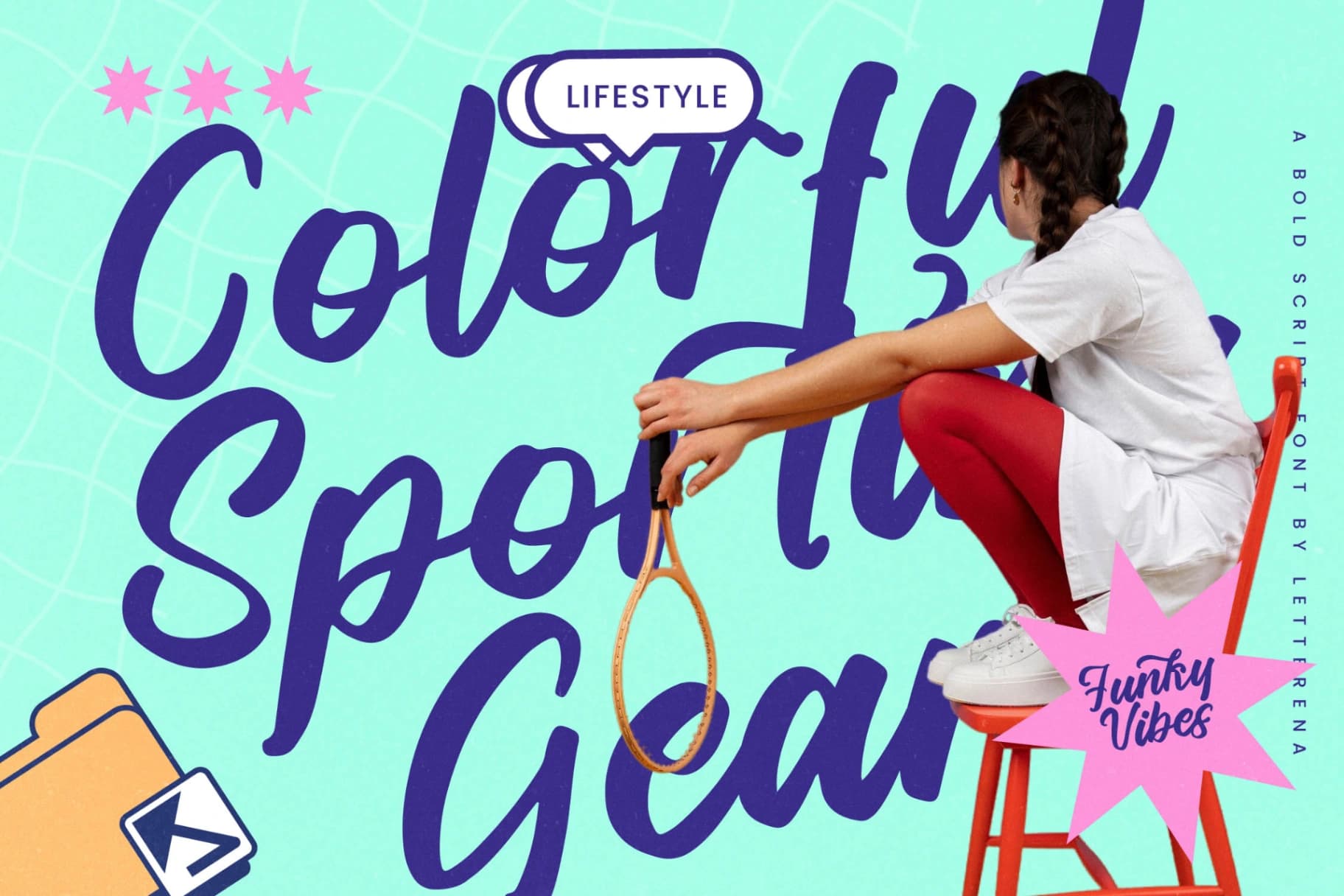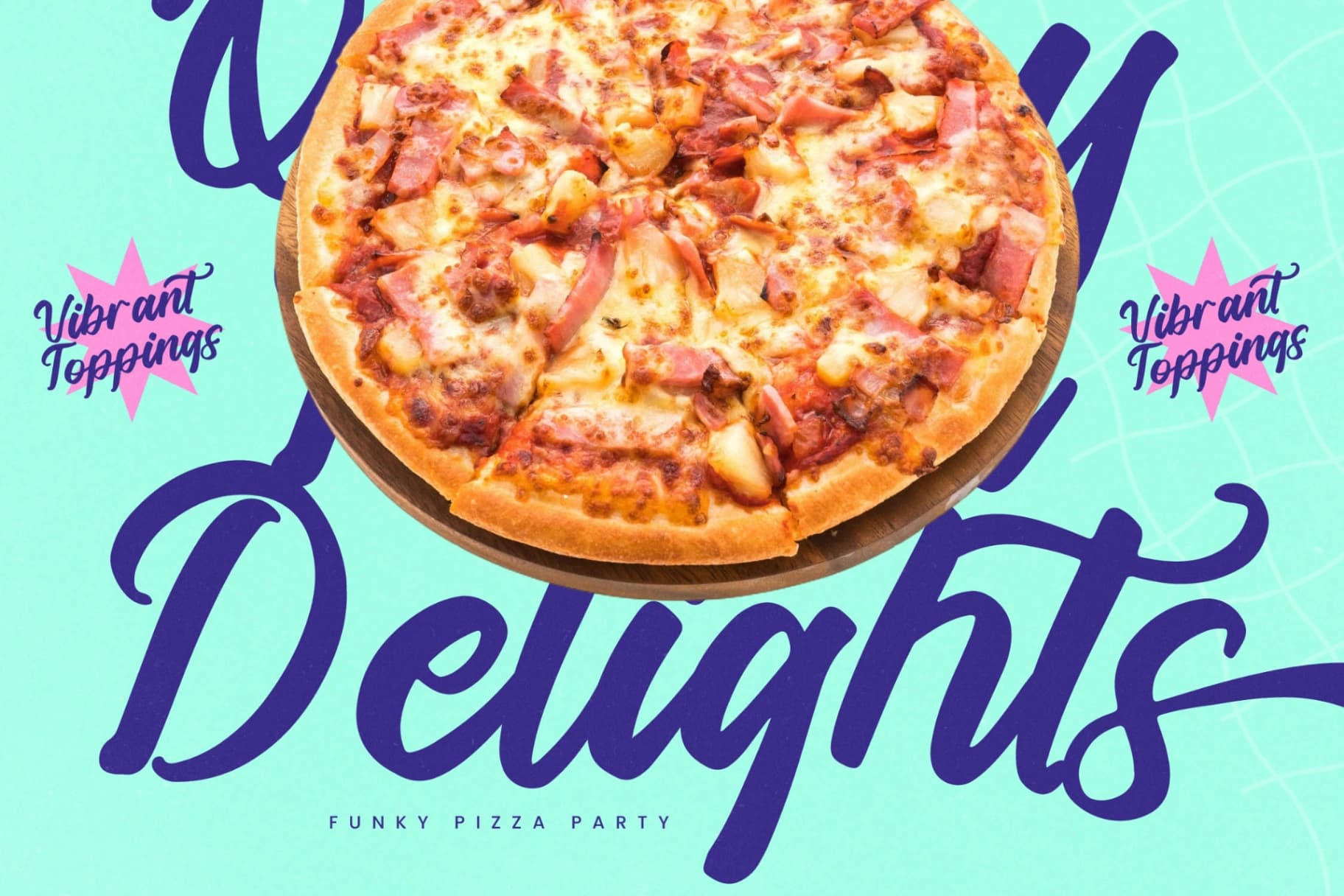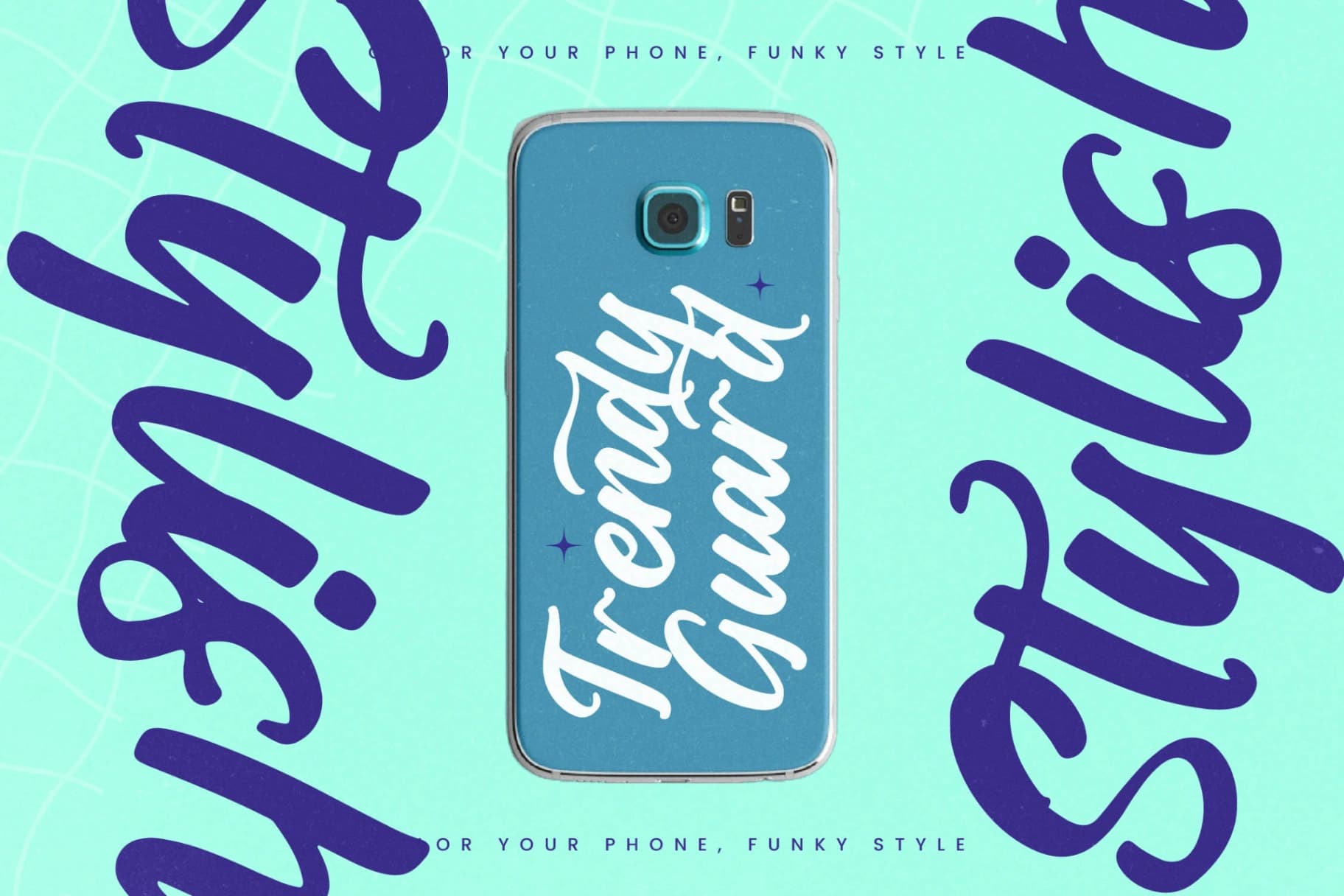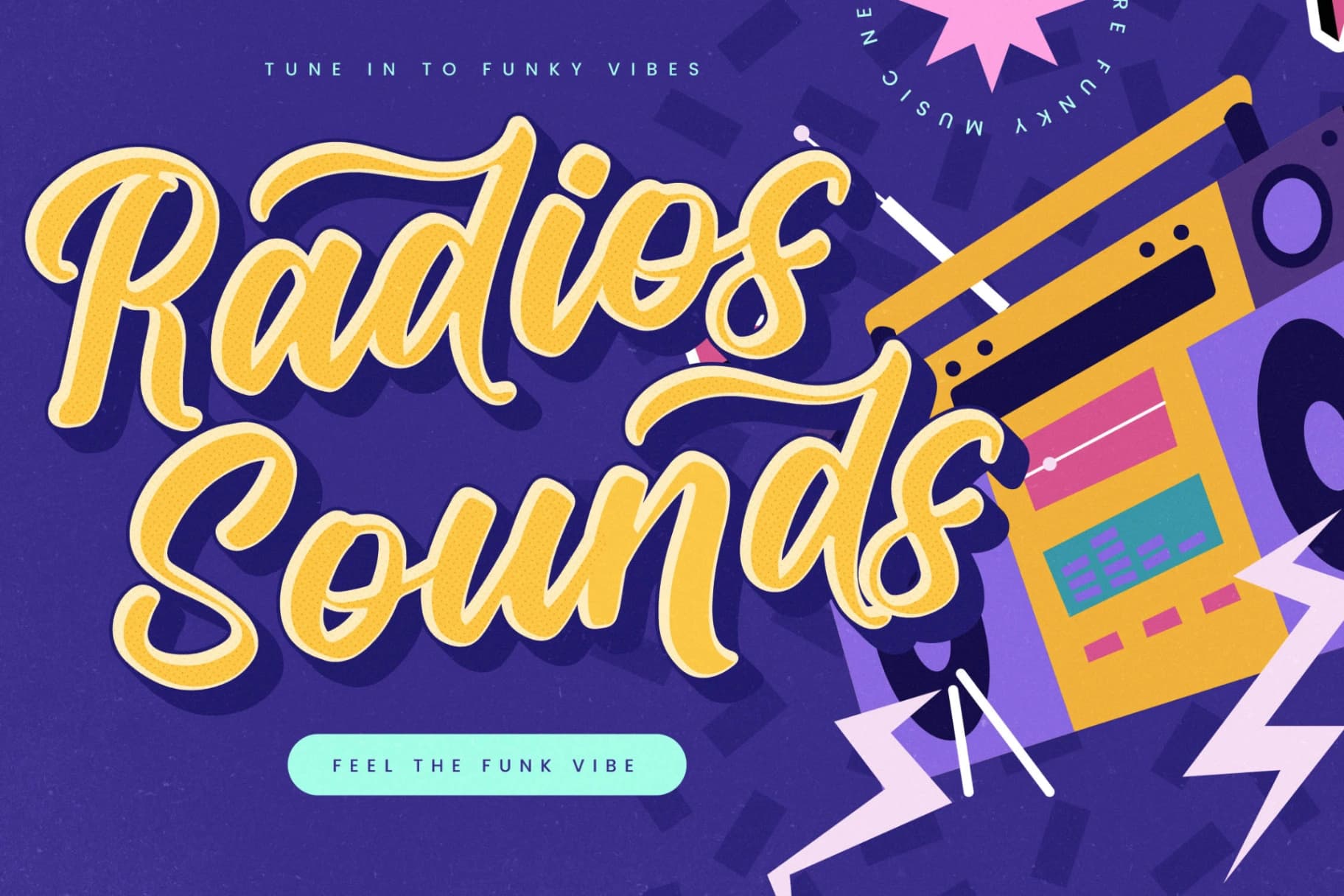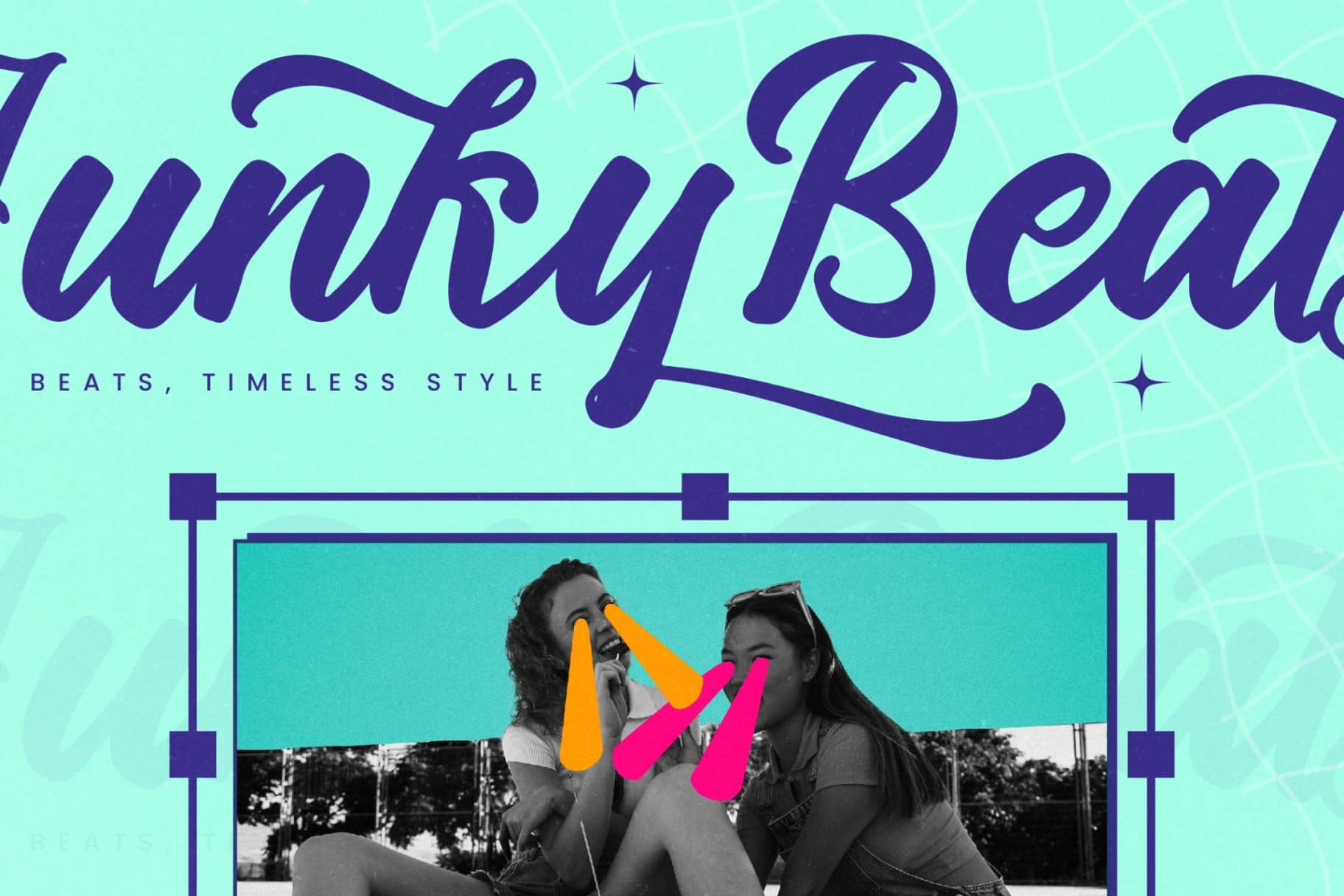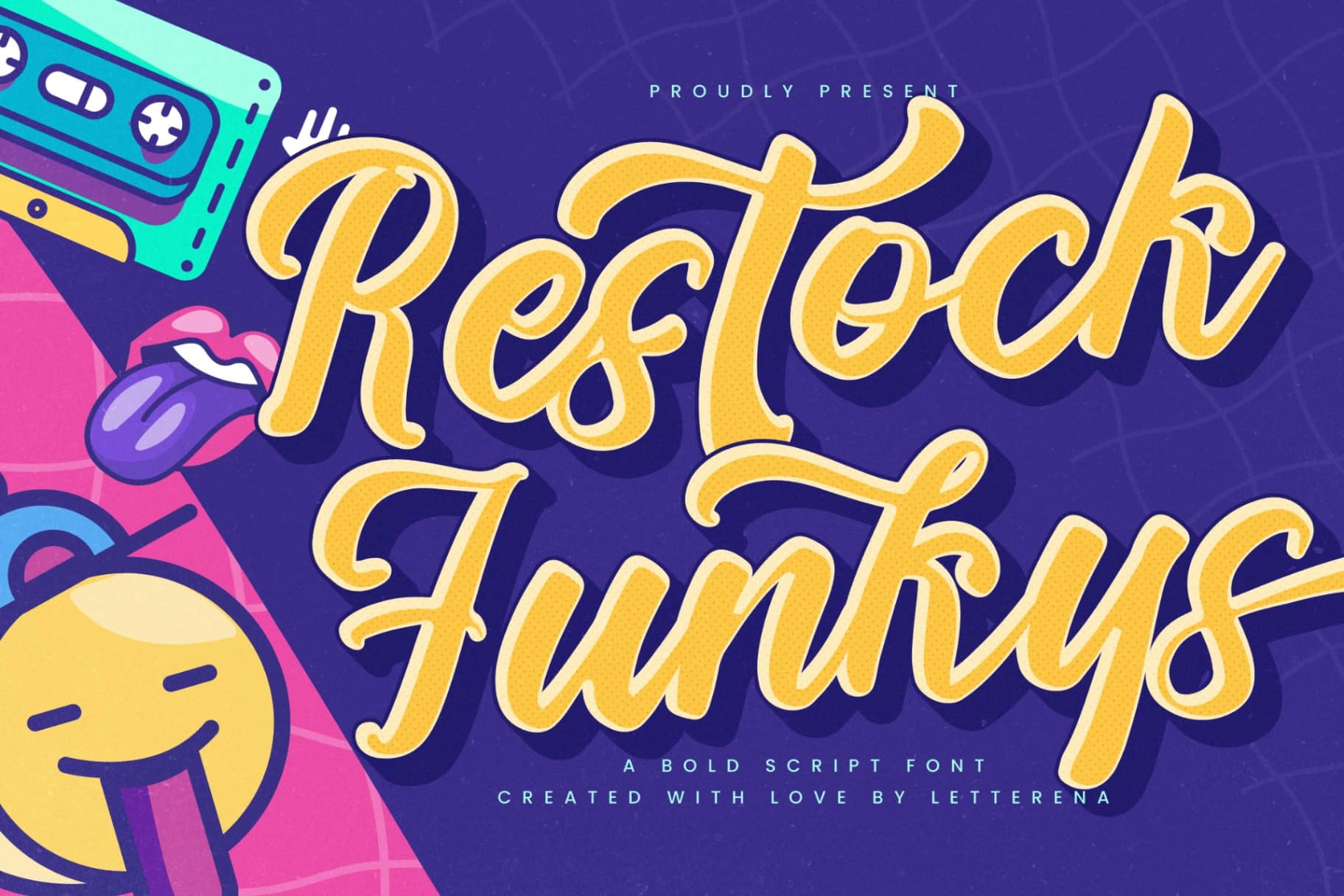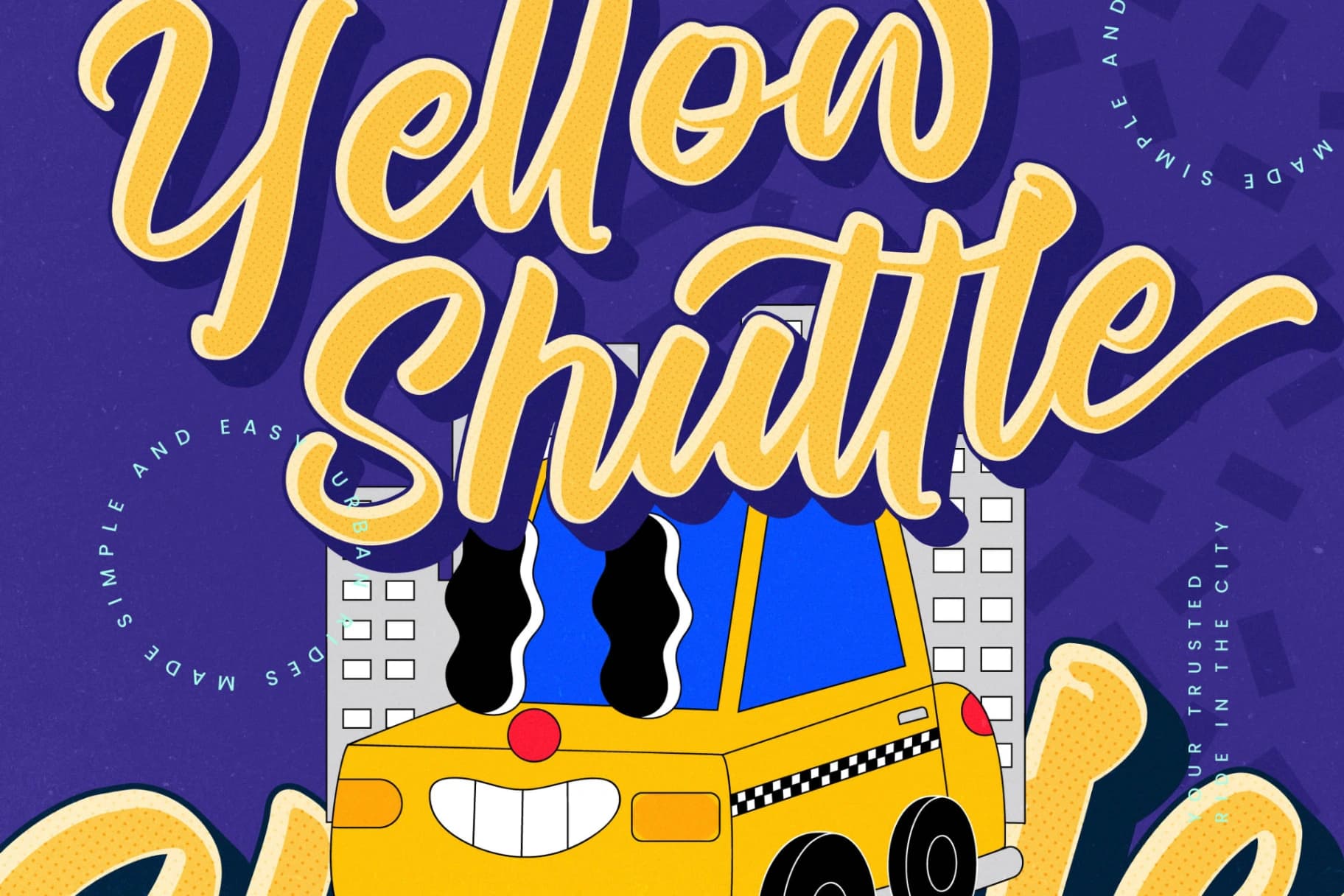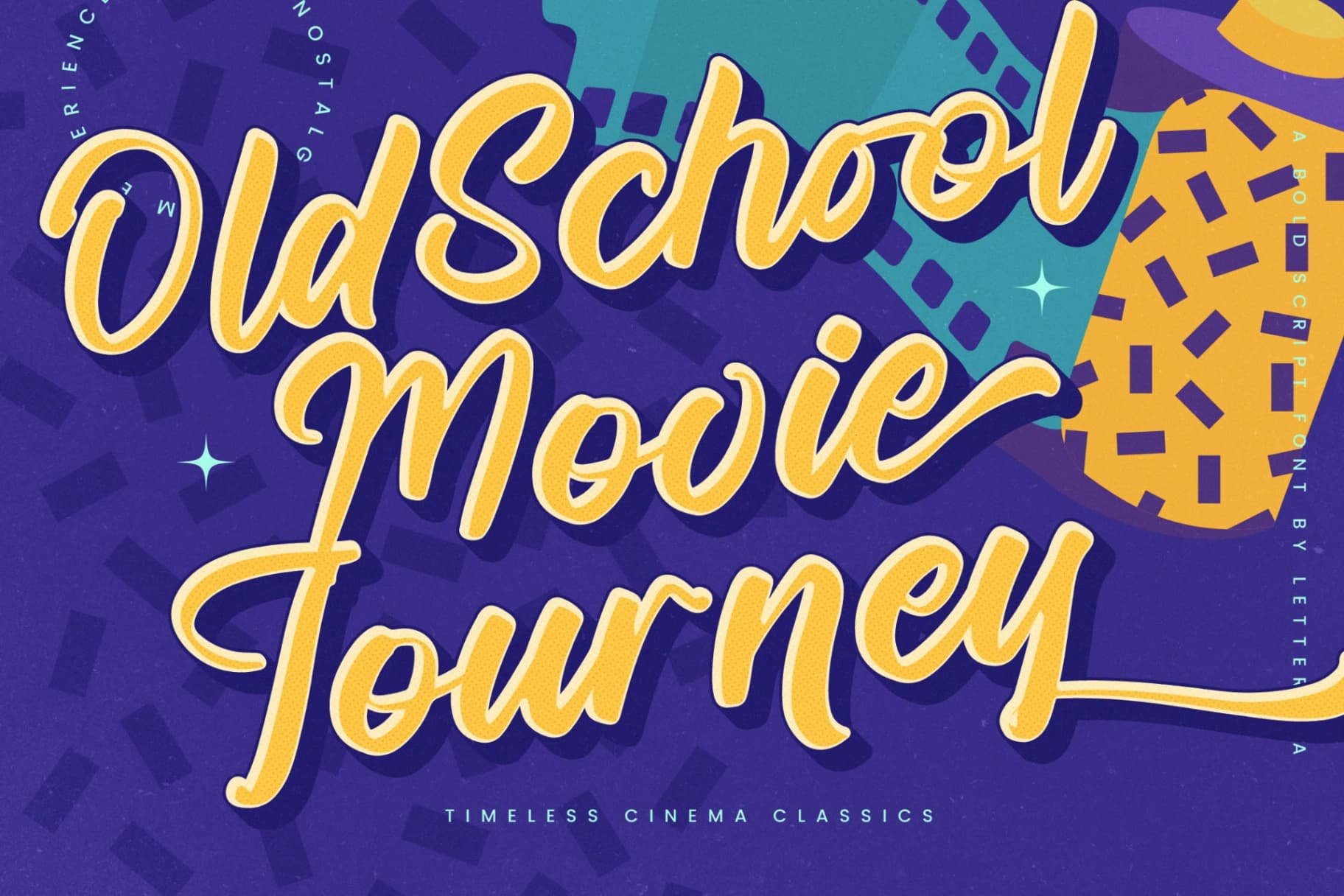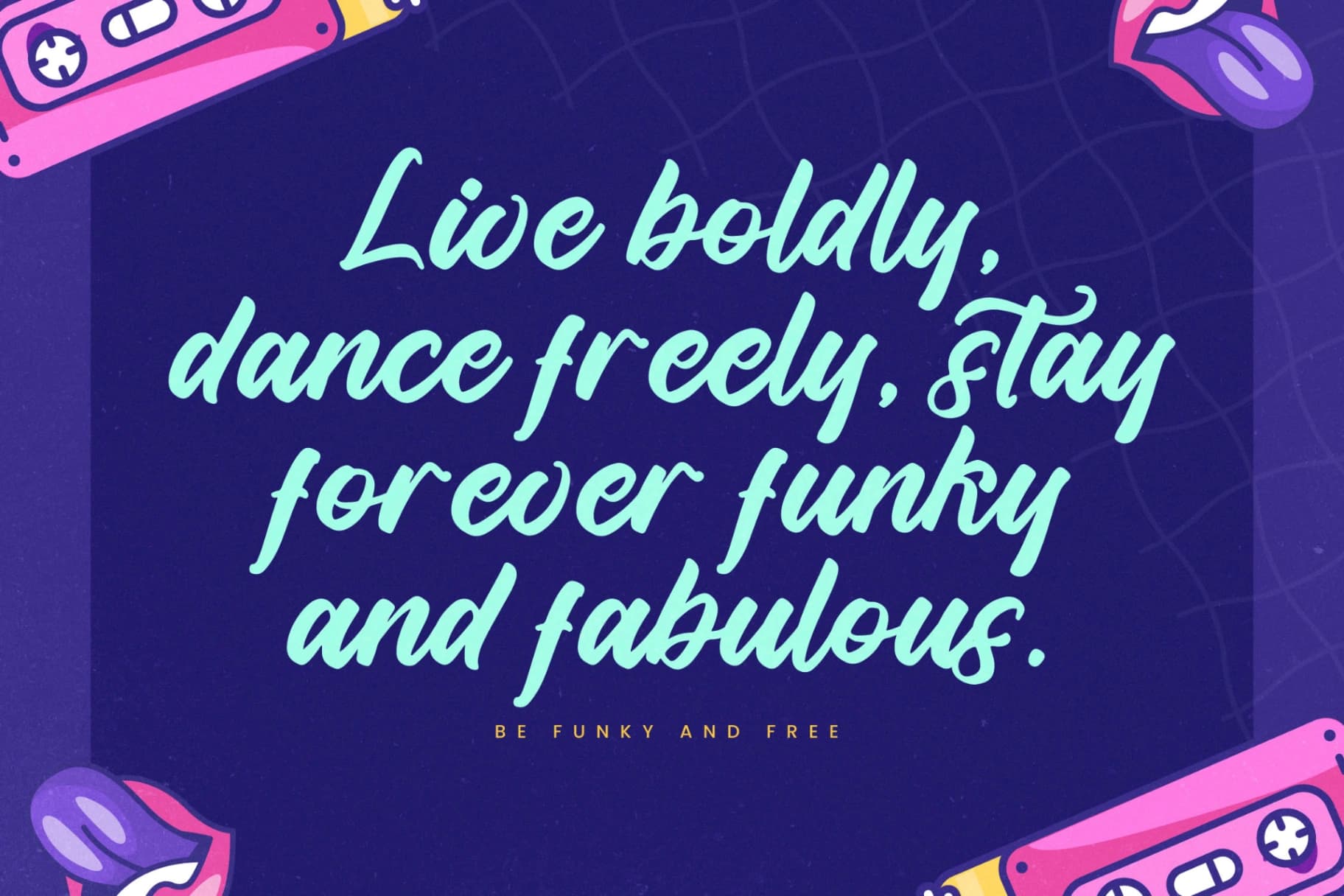
Restock Funkys – Bold Script Font
Unleash a wave of vibrant nostalgia and contemporary flair with Restock Funkys – Bold Script Font. This dynamic design captures the essence of a bygone era, infused with a fresh, modern twist. Its distinctively bold script letterforms flow with an energetic rhythm, ensuring your message commands attention and creates an impactful first impression.
Transform your creative endeavors with the undeniable charm of Restock Funkys – Bold Script Font. It’s an exceptionally versatile typeface, ideally suited for compelling headlines, eye-catching branding, distinctive packaging, and vibrant social media graphics. Elevate your project with a font that conveys confidence and playful sophistication, establishing a memorable brand identity.
Expand your creative reach without boundaries. With its extensive multilingual support, Restock Funkys – Bold Script Font adapts seamlessly across global markets, making it incredibly versatile for international projects. This ensures your design resonates with diverse audiences, maintaining its unique aesthetic integrity regardless of language.
Choose Restock Funkys – Bold Script Font to make an unforgettable impression. This typeface is more than just letters; it’s a statement, a fusion of retro appeal and contemporary boldness designed to bring your vision to life. An essential asset for designers seeking to add spirited creativity to their portfolios, guaranteeing standout results every time.